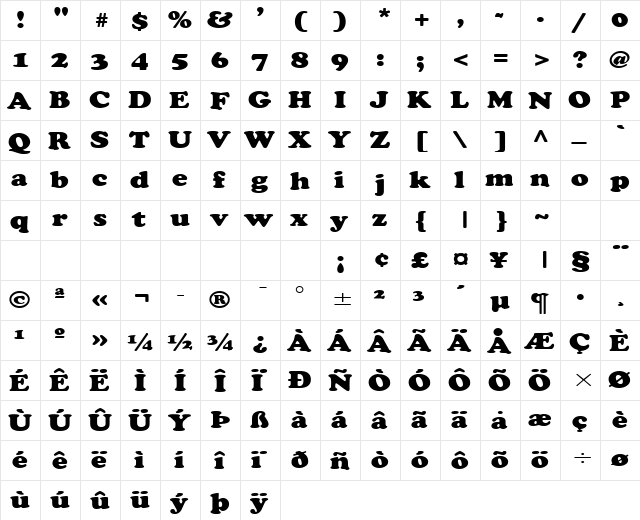
Cupid Wide Normal
Design Context for Cupid Typeface
Cupid takes a measured approach to typography — its balanced proportions and neutral character make it a reliable workhorse for both digital and print work.